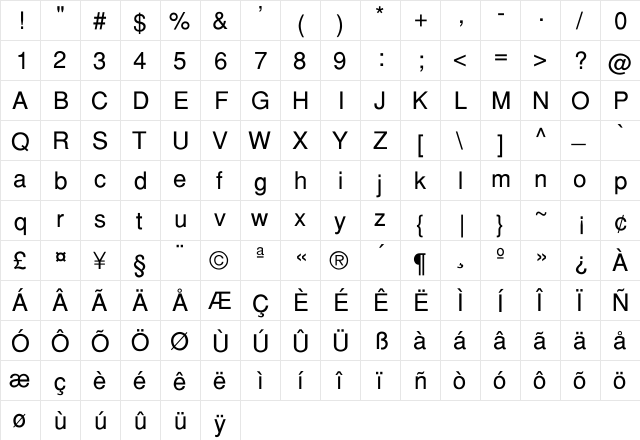
Holland Thin Regular
Design Context for Holland Thin Typeface
Holland Thin takes a measured approach to typography — its balanced proportions and neutral character make it a reliable workhorse for both digital and print work. Its slender proportions lend an understated elegance to any composition.